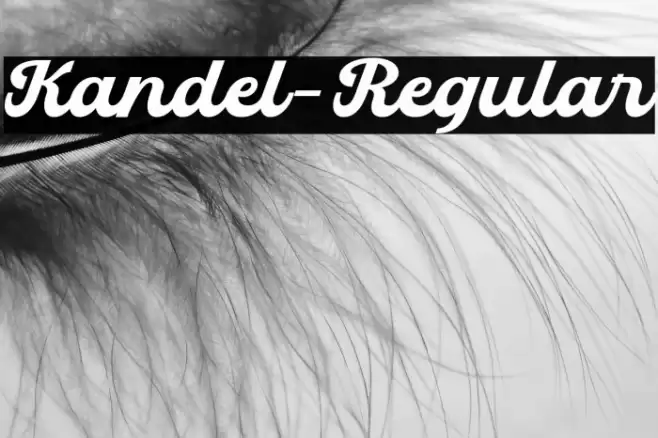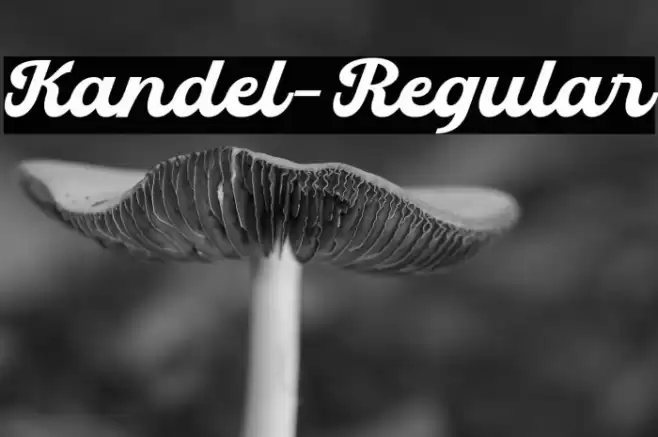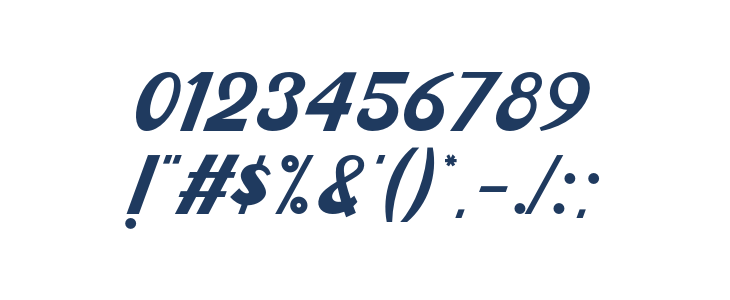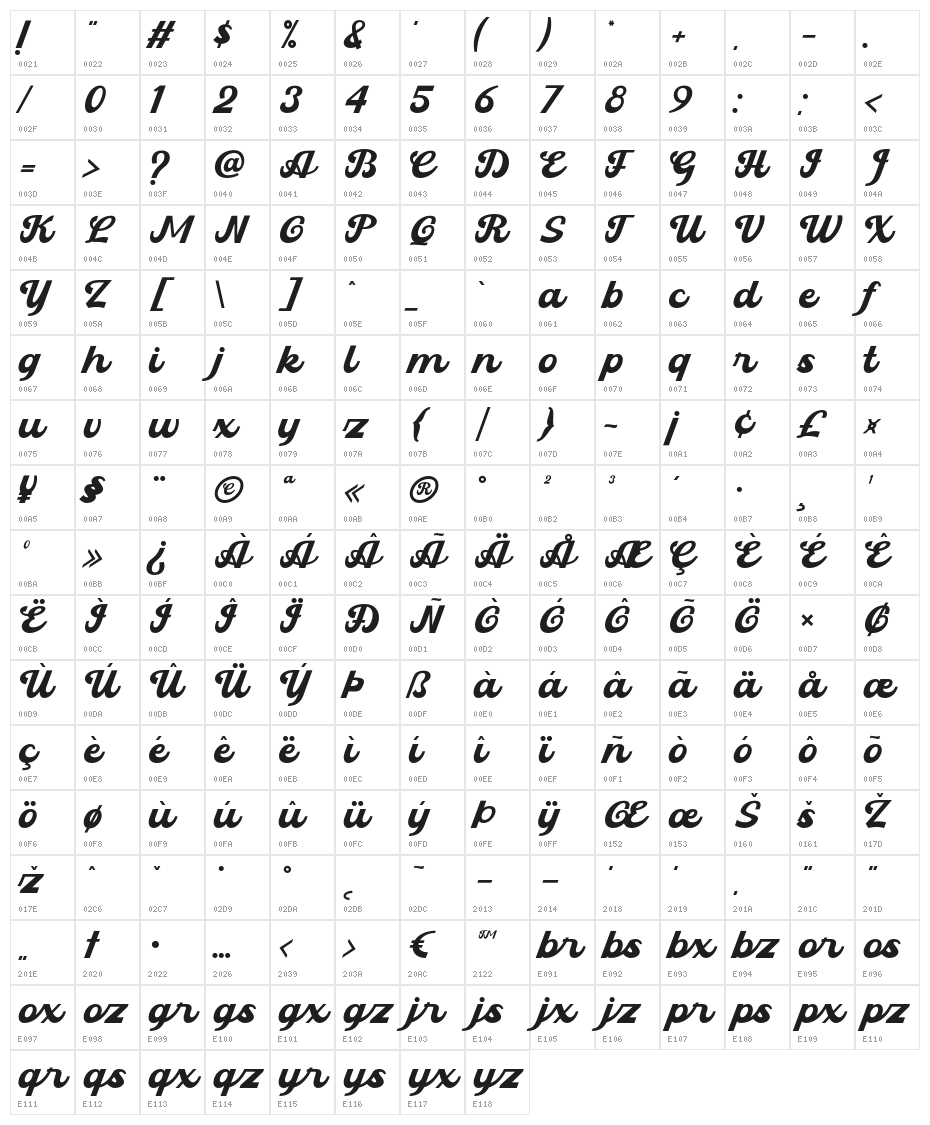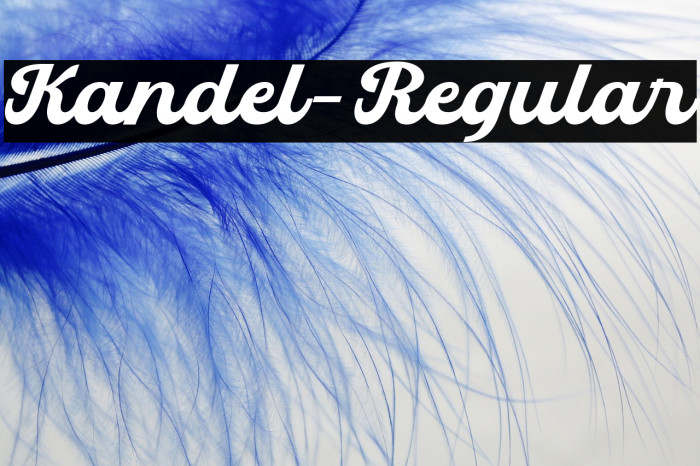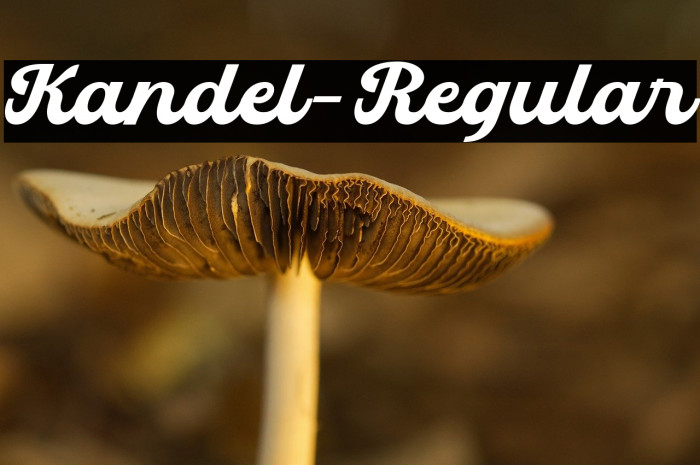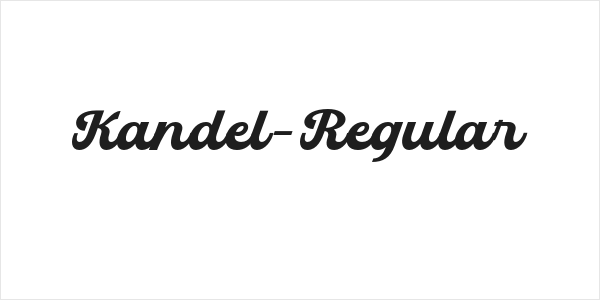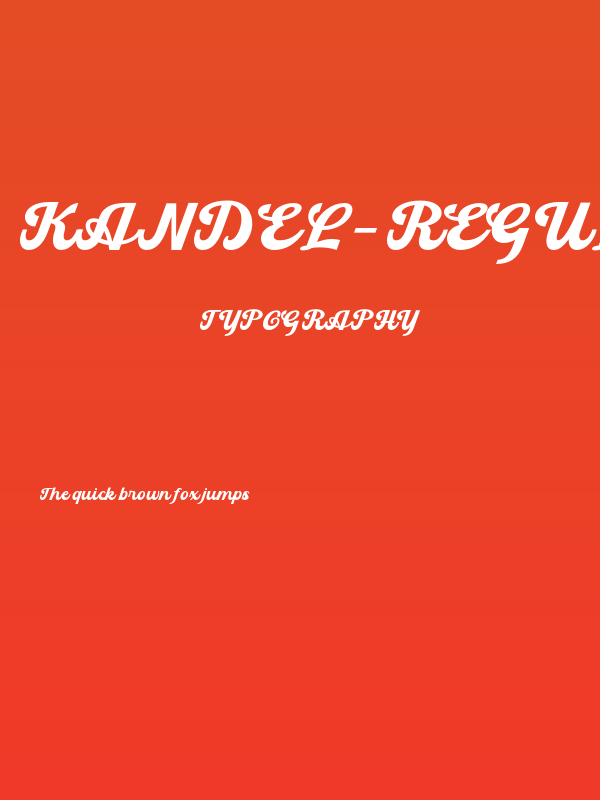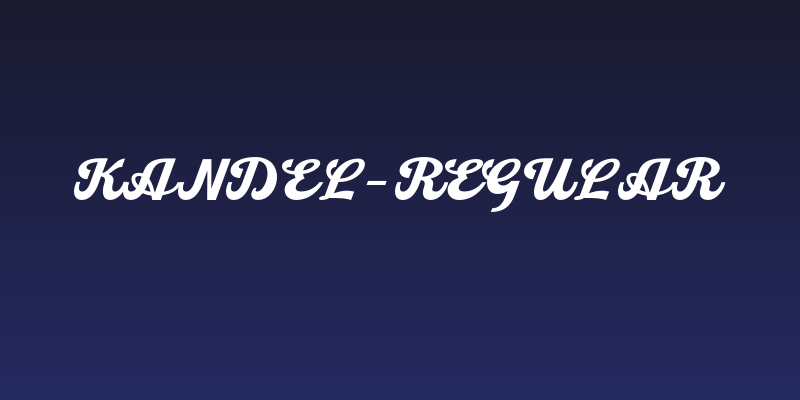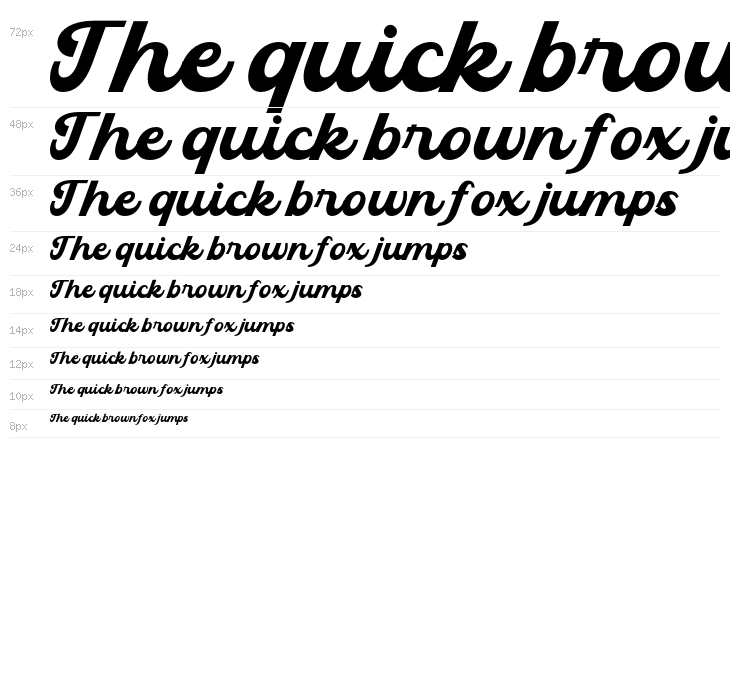
Kandel-Regular Font
Kandel-Regular Description
This font features a bold, flowing script style that combines elegance with a touch of modern flair. The uppercase letters are characterized by their sweeping curves and dynamic strokes, giving them a sense of movement and sophistication. The lowercase letters maintain a consistent flow, with rounded forms and smooth connections that enhance readability. The numerals are bold and clear, making them suitable for various applications. Special characters are designed with the same attention to detail, ensuring they complement the overall aesthetic. This font's unique style makes it versatile for both formal and creative projects.
A bold, flowing script font with elegant curves and modern flair from Regular fonts.
- Proposed Projects: Ideal for wedding invitations, branding, logo design, and elegant signage.
- Use Case: Logos, Headlines, Invitations